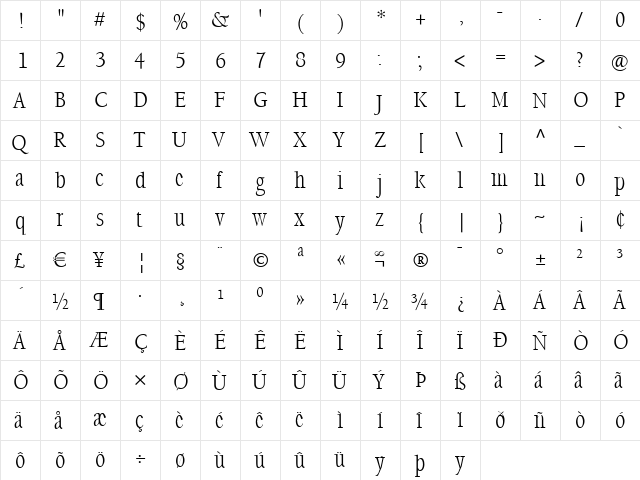
SteepOldstyle Regular
Design Context for SteepOldstyle Typeface
SteepOldstyle brings classic typographic sensibility to the table — its serifs and measured letterforms reflect centuries of print heritage.
Pro Tip: Use SteepOldstyle for editorial body copy and considered headline work. Pair with a neutral sans for UI elements or captions to create a classic hierarchy.